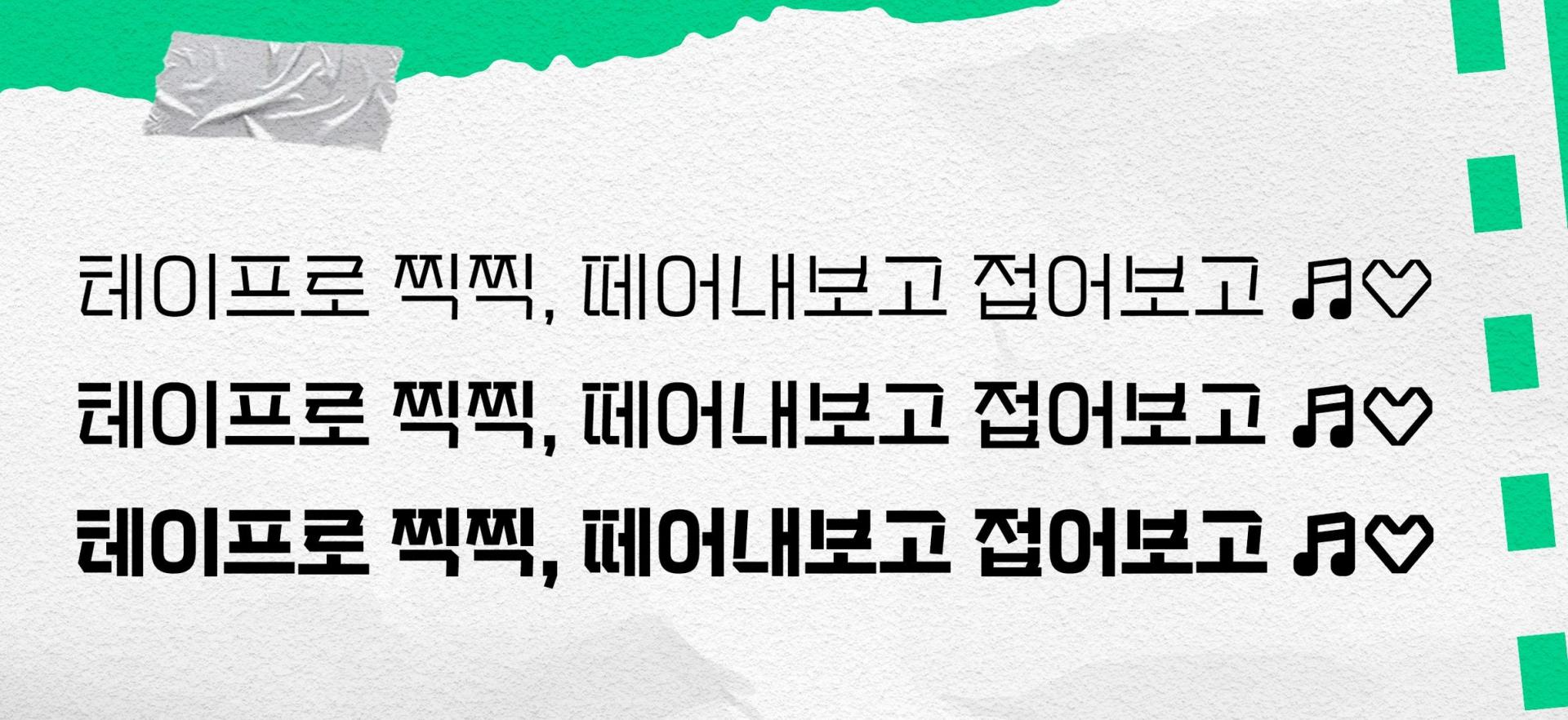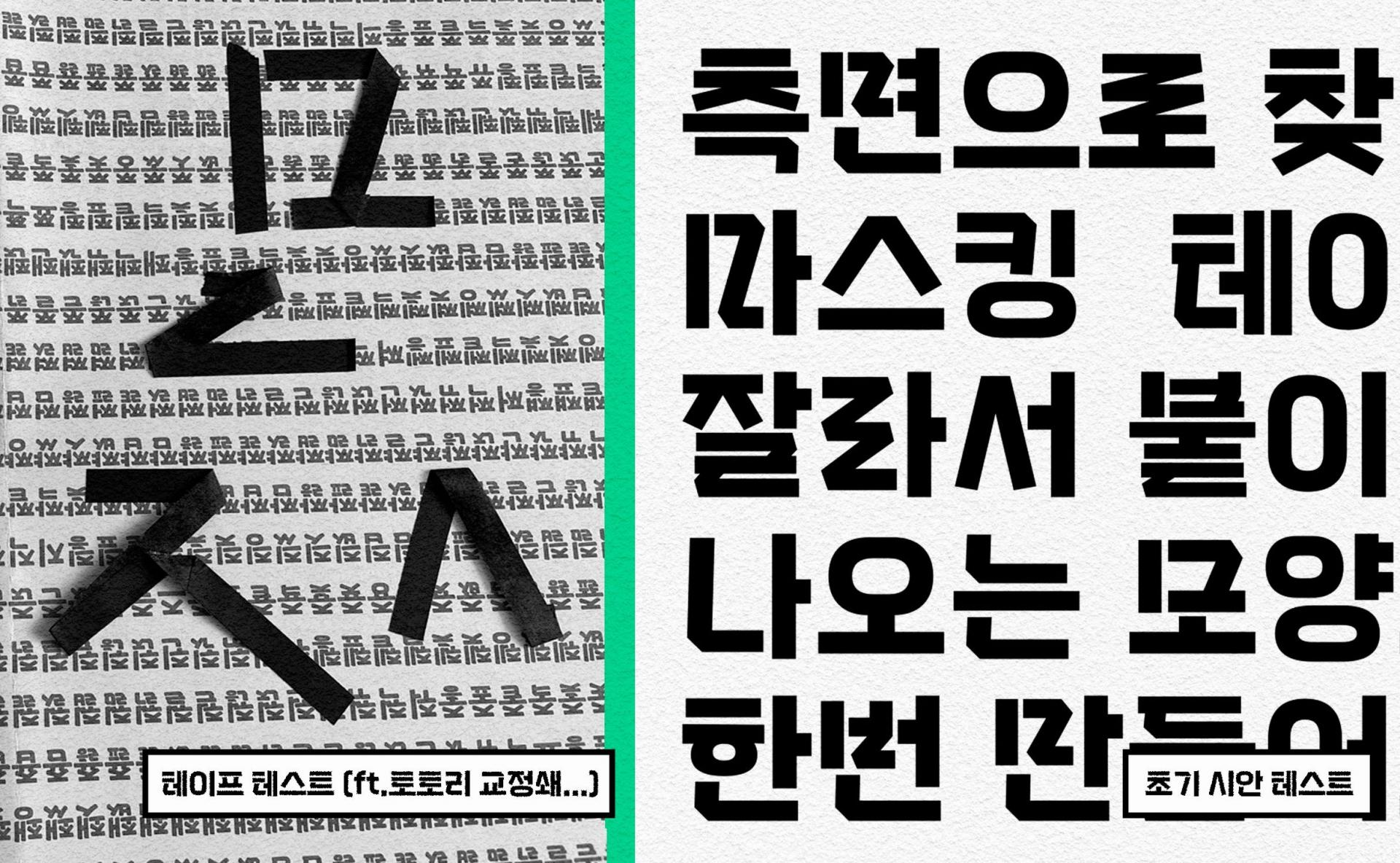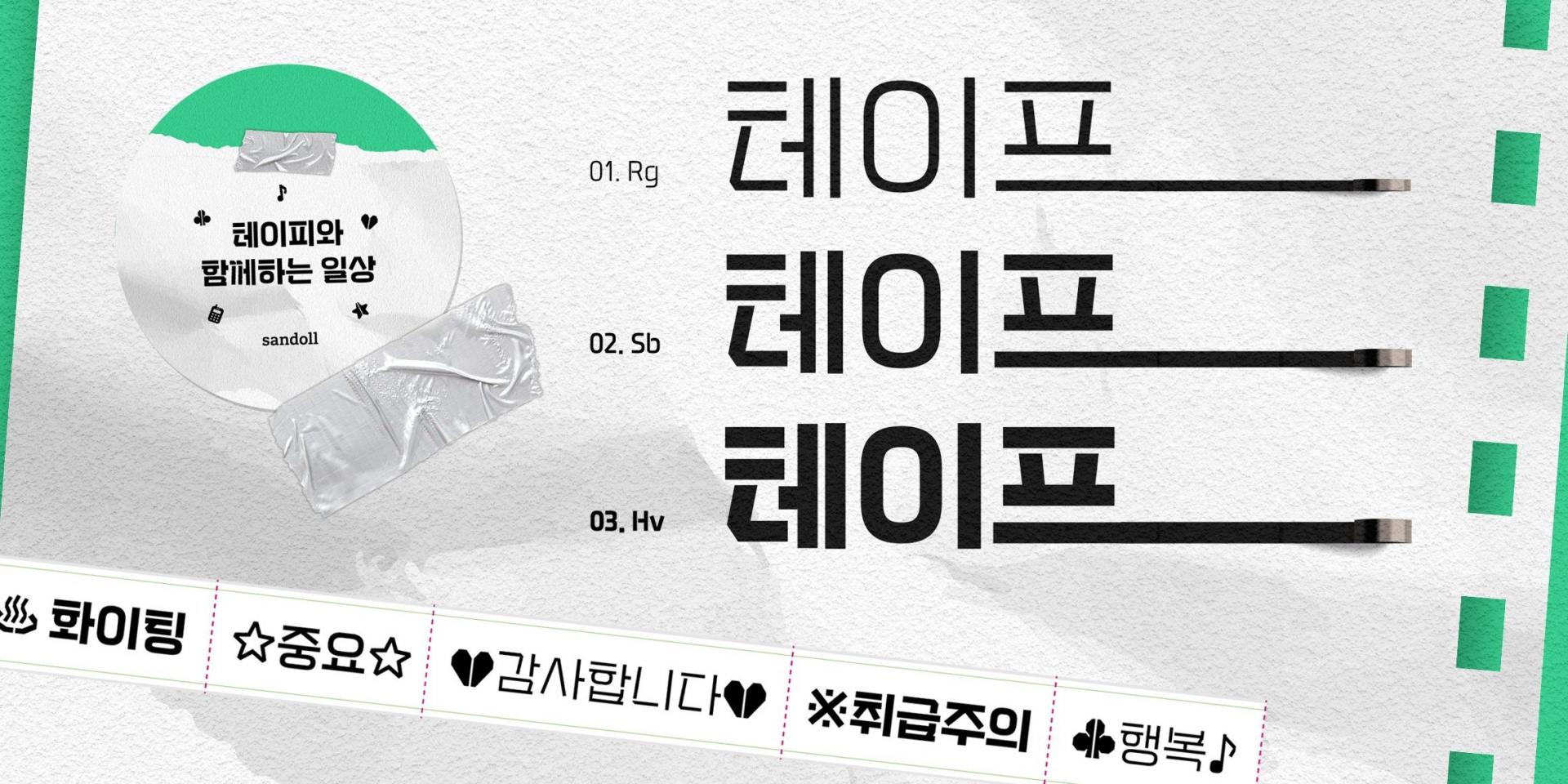
If you are looking for a more playful, fully packed square sans, look here—!
There is no such thing as two identical fully packed squares under the same sky!
At Sandoll, we make an effort each year to listen closely to users’ voices through surveys. Despite the many questions, we gain both insight and inspiration as we carefully read through the thoughtful responses shared by users. The Product Planning Team I belong to is responsible for translating this data into fonts. Through fonts, we strive to anticipate users’ needs and trends, respond to them, and make informed proposals. That is why we are always highly attentive to which fonts people prefer and need. Recently, we have also been visiting bookstores and exhibition spaces in person to conduct field research, observing how various fonts are actually being used. If you happen to see five or six people huddled together somewhere, quietly talking only about fonts, there is a good chance they are from Sandoll’s Product Planning Team!
「SD Tapi」 is a font planned through the analysis of survey results collected in this way. Since the release of 「Sandoll Gyeokdong Gothic」 in 2014, numerous fully packed modular gothic fonts have appeared up to the present day. Even so, fully packed modular gothic ranked first as the most desired font style in our survey. As a result, Sandoll has been producing at least one new fully packed square design each year over the past several years. Beyond that, we believe this font also meets specific user requests such as, “We need a font that allows a unified design across a single family, from thick strokes to thin ones!” and “We want a display font with a clear concept and distinctive character!” a single family, from thick strokes to thin ones!” and “We want a display font with a clear concept and distinctive character!”
So, what about 「SD Tapi」?
Compared to the fully packed square fonts already in the Sandoll library, 「SD Tapi」 is a more graphic font. To enhance usability, it was planned with full Hangul support* and extended Latin, and produced in three weights: Regular, SemiBold, and Heavy. As its name suggests, 「SD Tapi」 is a ‘type’ created with letters inspired by tape.
*Expanded to 11,172 characters to cover the full range of modern Hangul syllables.
Because there were already quite a few fonts based on a tape motif, we approached this project by posing light, playful questions such as, “What if we used tape to create a fully packed square?” and “Could tape be used in a more fun way?” This line of thinking is also why we emphasized the idea of type earlier. While letters made of tape can easily become irregular, we believed that, as type, they still needed to retain a certain level of comfortable readability and visual consistency. Rather than forcing every glyph to be literally constructed from tape, we developed the font by organizing and designing forms based on the motif. You will immediately understand this approach when you see the square, track-like form of the ㅇ(ieung) character.
「SD Tapi」 is a font in which the characteristics of tape—such as bends and breaks—stand out clearly. As mentioned earlier, rather than looking like letters literally made of tape, it is a look that translates letters that could be made with tape into a font. Depending on the angle at which a stroke begins and ends, and the points where the tape peels, sticks, or bends, the range of expression was virtually endless. Refining and adjusting these possibilities into visually pleasing forms was fun, yet it also required deep consideration each time.
In fact, the initial seed-letter drafts contained more graphic elements than the final version. When set into lines of text, some elements collided visually, so the design was ultimately revised in a direction that reduced those elements, leaving only a few distinctive glyph features. This stage involved quite a few twists and turns. With simpler letters that had more space, we wanted to emphasize their character, while with more complex structures, we wanted to reduce design elements. This made the lack of cohesion between base letters and final consonant letters somewhat frustrating, and multiple rounds of design testing were necessary. During this process, we even tried creating glyphs directly with masking tape to gain hints on how to translate those forms into type.
How we recommend using it
「SD Tapi」 looks like letters made by peeling, sticking, and folding tape, and its distinctive broken and bent glyph designs are a key part of its charm. The weight of the large initial consonants is also fun. On the flip side, this also means it can be seen as a fairly complex design. When used as a bold focal point, its design details become much more visible, allowing its appeal to really shine. During production, typesetting tests were conducted with the assumption that it would be used at 18 pt or larger. Whenever possible—no, actually… absolutely, absolutely (not a typo)—we recommend using it big(!). With its casual impression, 「SD Tapi」 is easy and fun to use lightly in many different contexts. Please show lots of love for it!